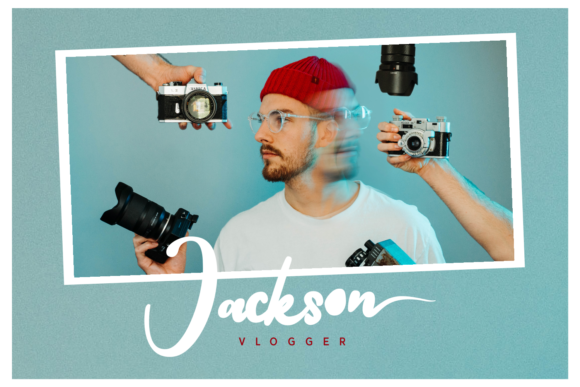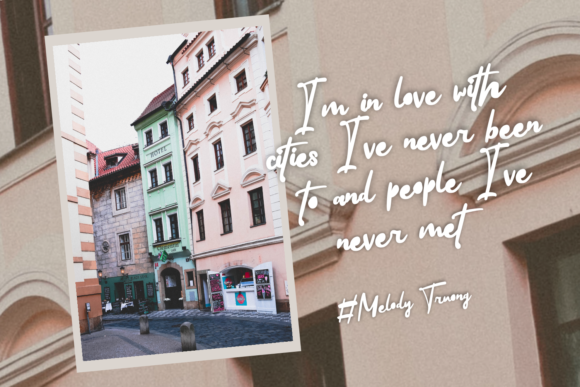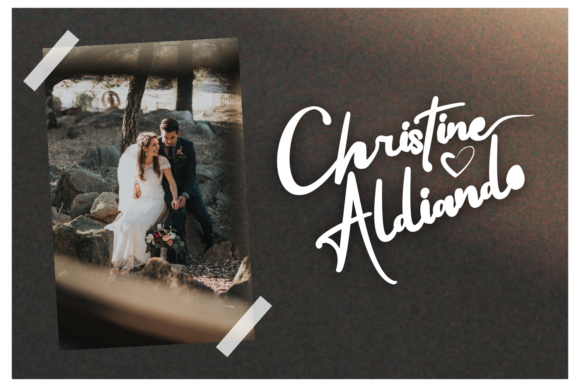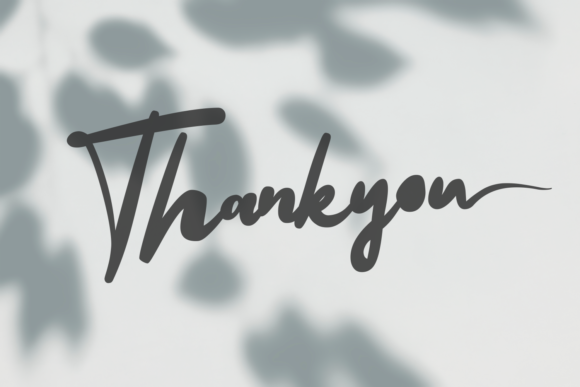
Caline Font
About Caline Font
Caline is a beautiful brushed handwritten font. Add this smooth and flowing font to each of your designs and make them stand out.